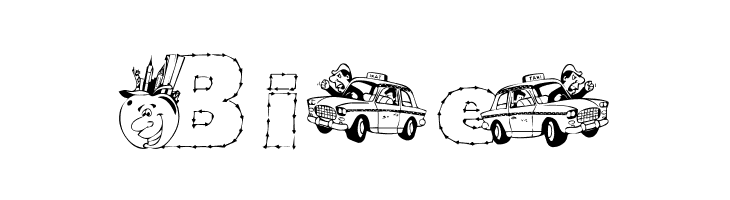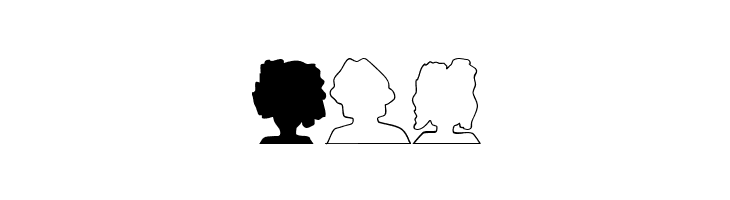
( Gia Bagratuni )
A clean, modern sans-serif font with uniform stroke width and versatile design.
( HackFonts - hackfonts.blogspot.com.co/ )
A bold, rounded font with a playful, retro style.
( Helldunkel - www.helldunkel.com )
A pixelated, geometric font reminiscent of digital displays and retro gaming.
( Ideal Fonts - web.archive.org/web/20020202010355/www.peppesbodega.nu/type/ )
A modern, geometric font with clean lines and uniform character width.
( Jake Raimer )
A playful, hand-drawn font with bold, irregular shapes.
( Katz Fontz - katzfonts.50megs.com/kg.html )
A decorative font with NYC-themed illustrations integrated into each letter.
( Lollibomb - www.lollibomb.com/ )
A display font using human head silhouettes as characters.
( Oliver Conte Design - www.ocdesign.com/html_pages/free_fonts.html )
A playful and quirky font with twisted, irregular characters.
( Splintered - www.splintered.co.uk )
A pixelated, blocky font with a retro digital aesthetic.